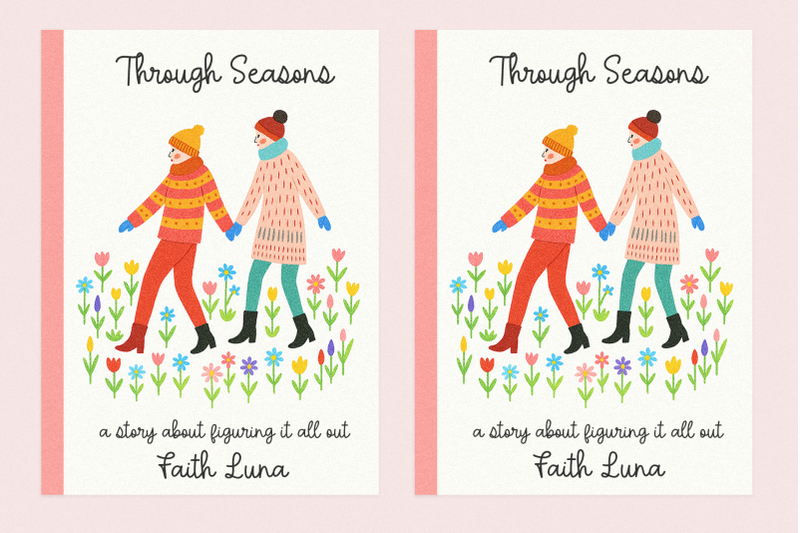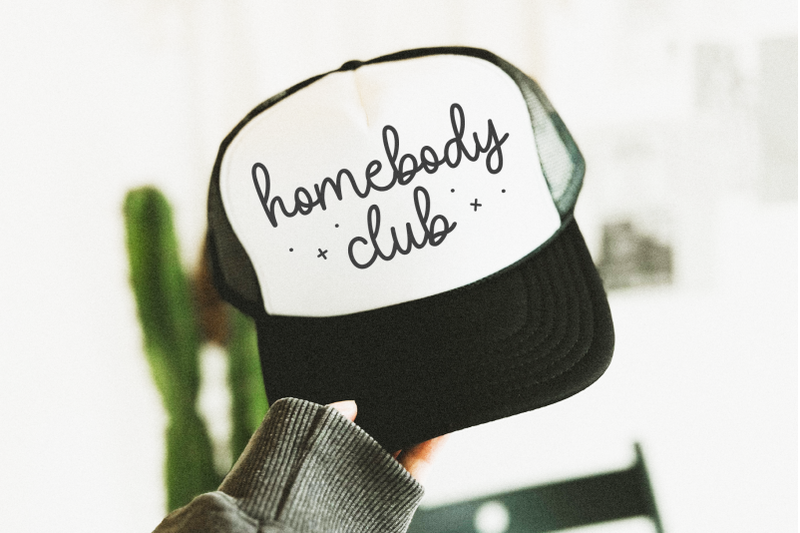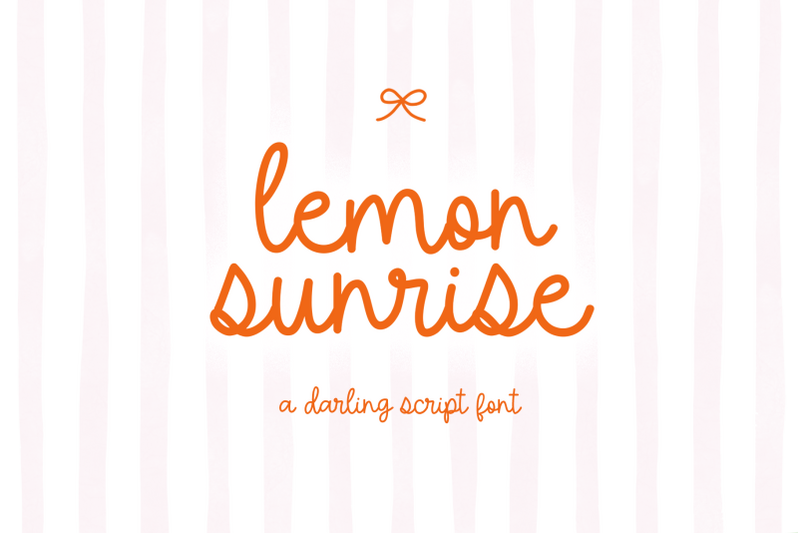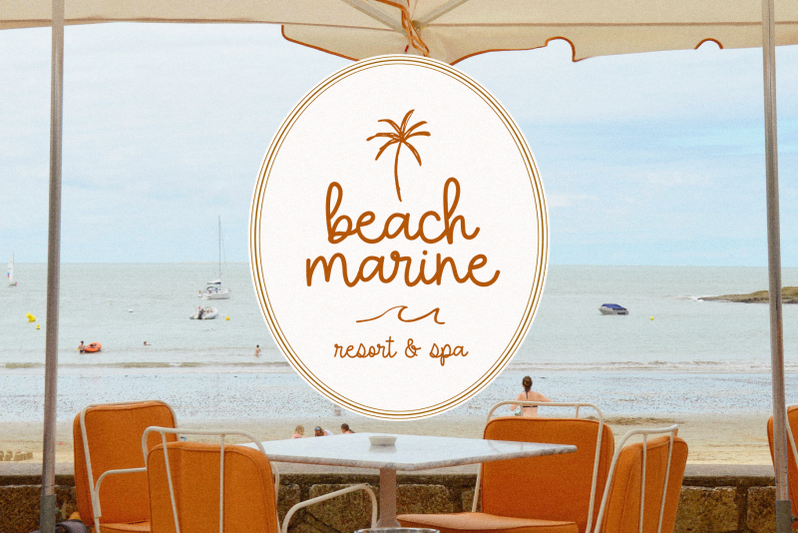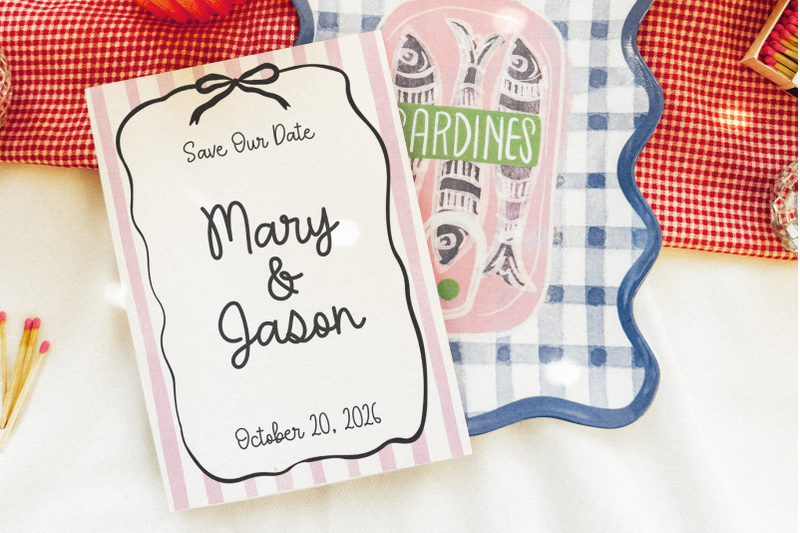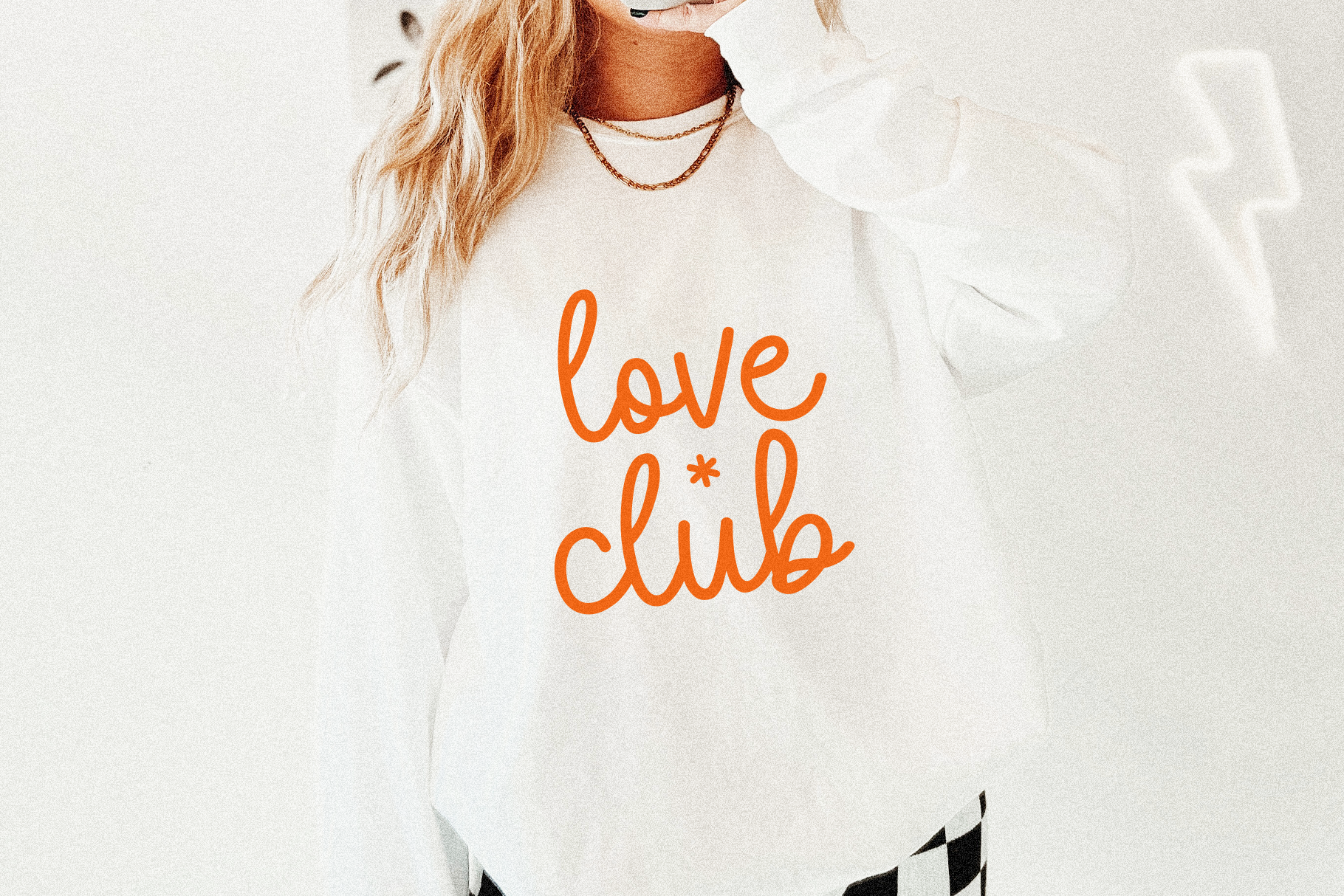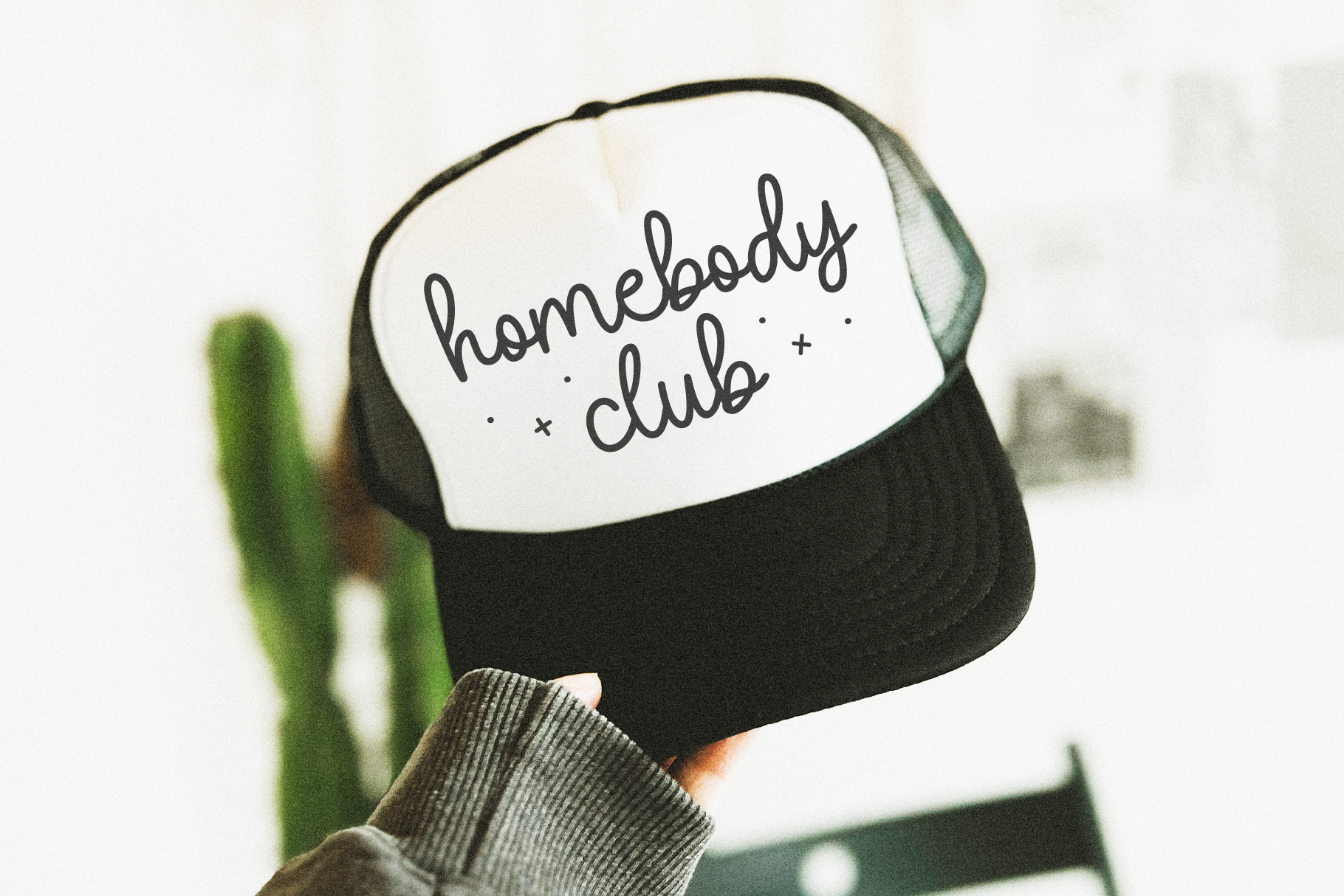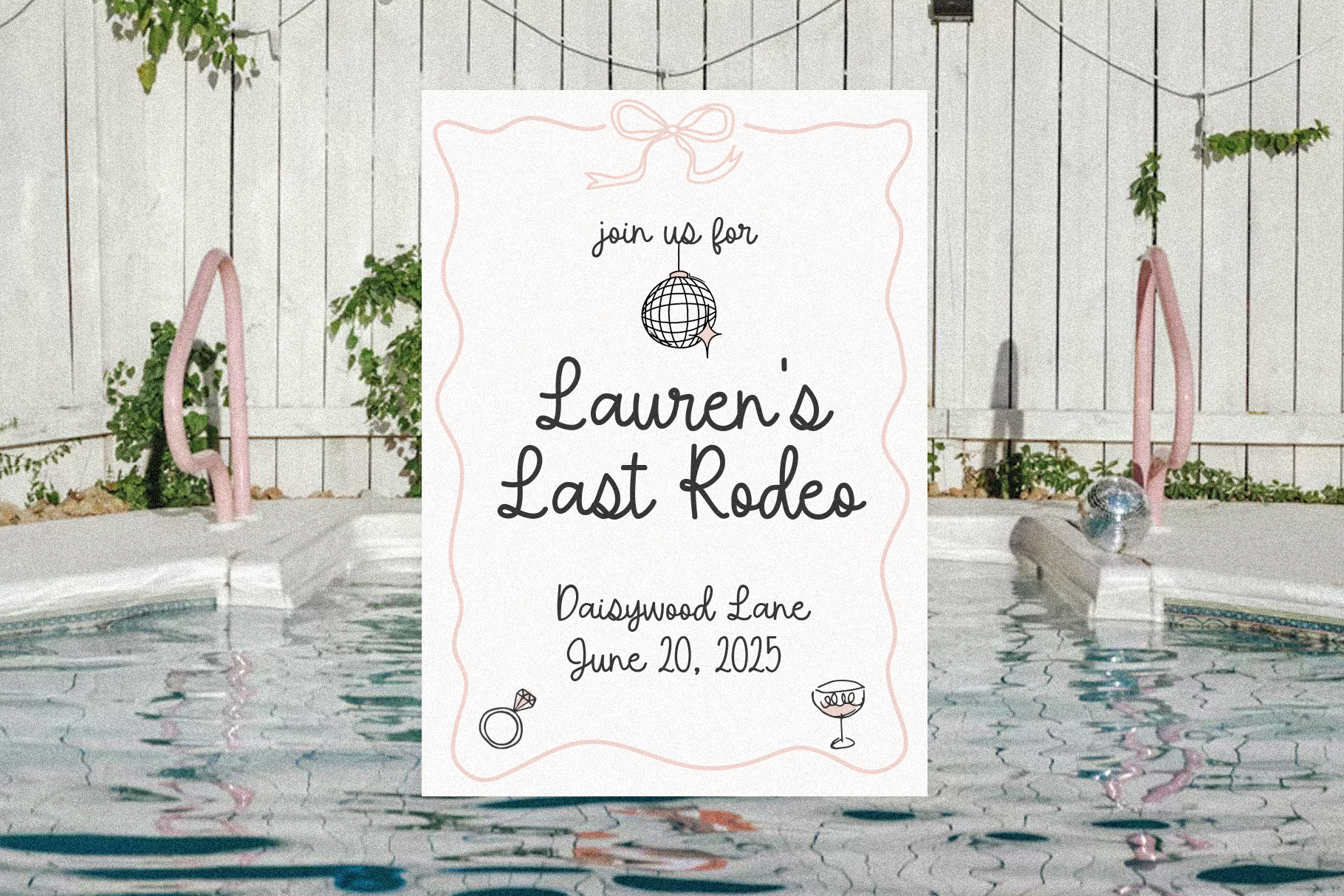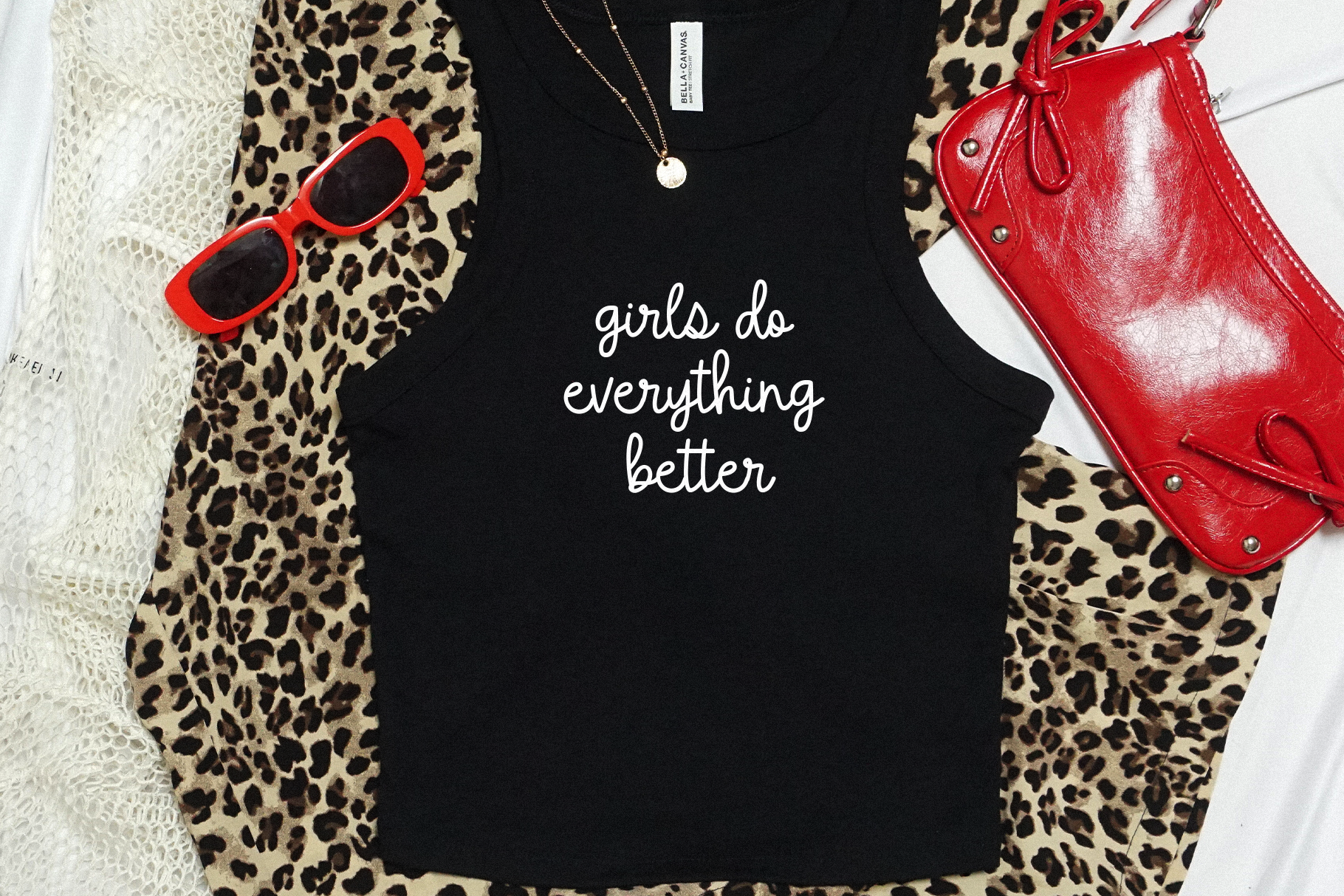
Lemon Sunrise - Whimsy Script Font
Lemon Sunrise is a cute handwritten script font.   This font is perfect for whimsy designs, cricut projects, Canva, svg files, wedding invitations, wedding decor, quotes, shirts, logos, goodnotes, procreate, invitations and more!   OTF/TTF   Thank you!